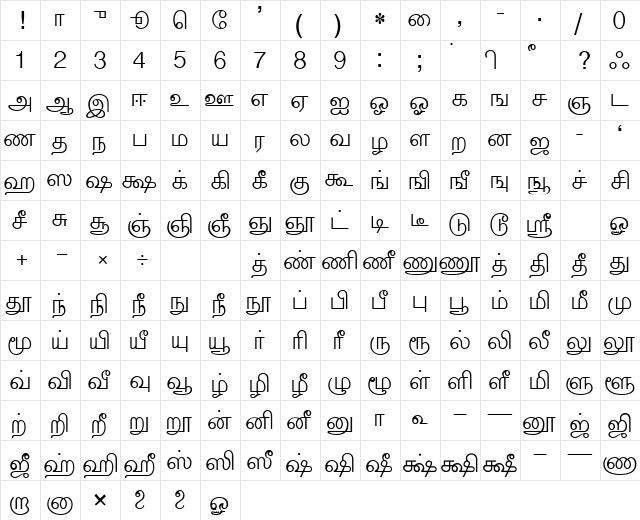
AkrutiTmlBarathi Normal
Design Context for AkrutiTmlBarathi Typeface
AkrutiTmlBarathi offers clean, dependable letterforms without strong stylistic allegiance, making it a practical choice for designers who need flexibility.